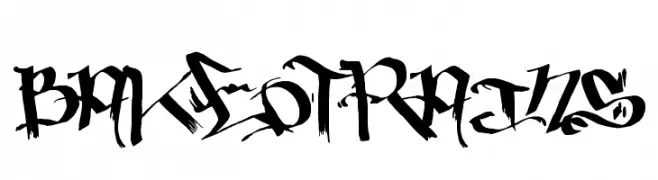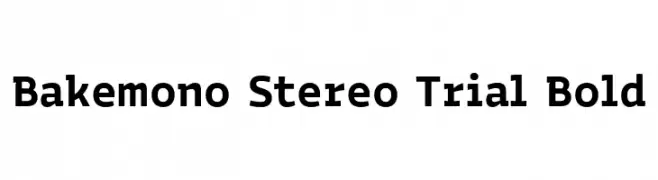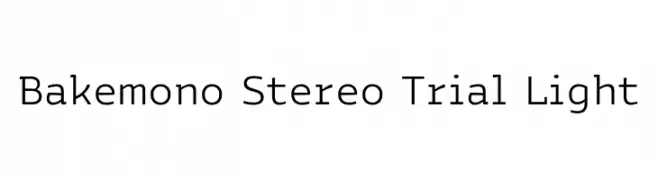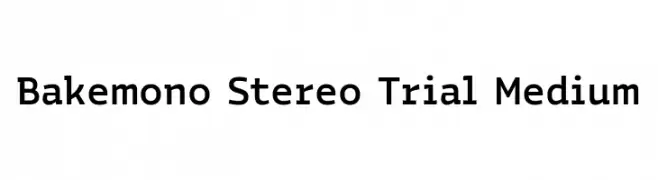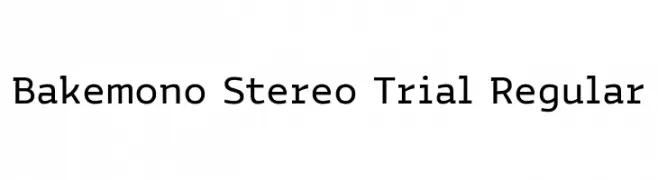
A playful, decorative font with hollow, spiral-like elements resembling snail shells.
A playful, hollow font with rounded, tubular characters and bold outlines.
A bold, decorative font with playful spiral patterns.
A bold, graffiti-inspired font with sharp lines and dynamic flourishes.
A bold, modern font with geometric influences and strong readability.
A bold, modern font with a strong and playful character.
A modern, monospaced font with a clean and minimalist design.
A clean, modern monospaced font with geometric simplicity.
A modern, geometric font with bold, clean lines and a slightly condensed style.
A clean, modern monospaced font with geometric precision.